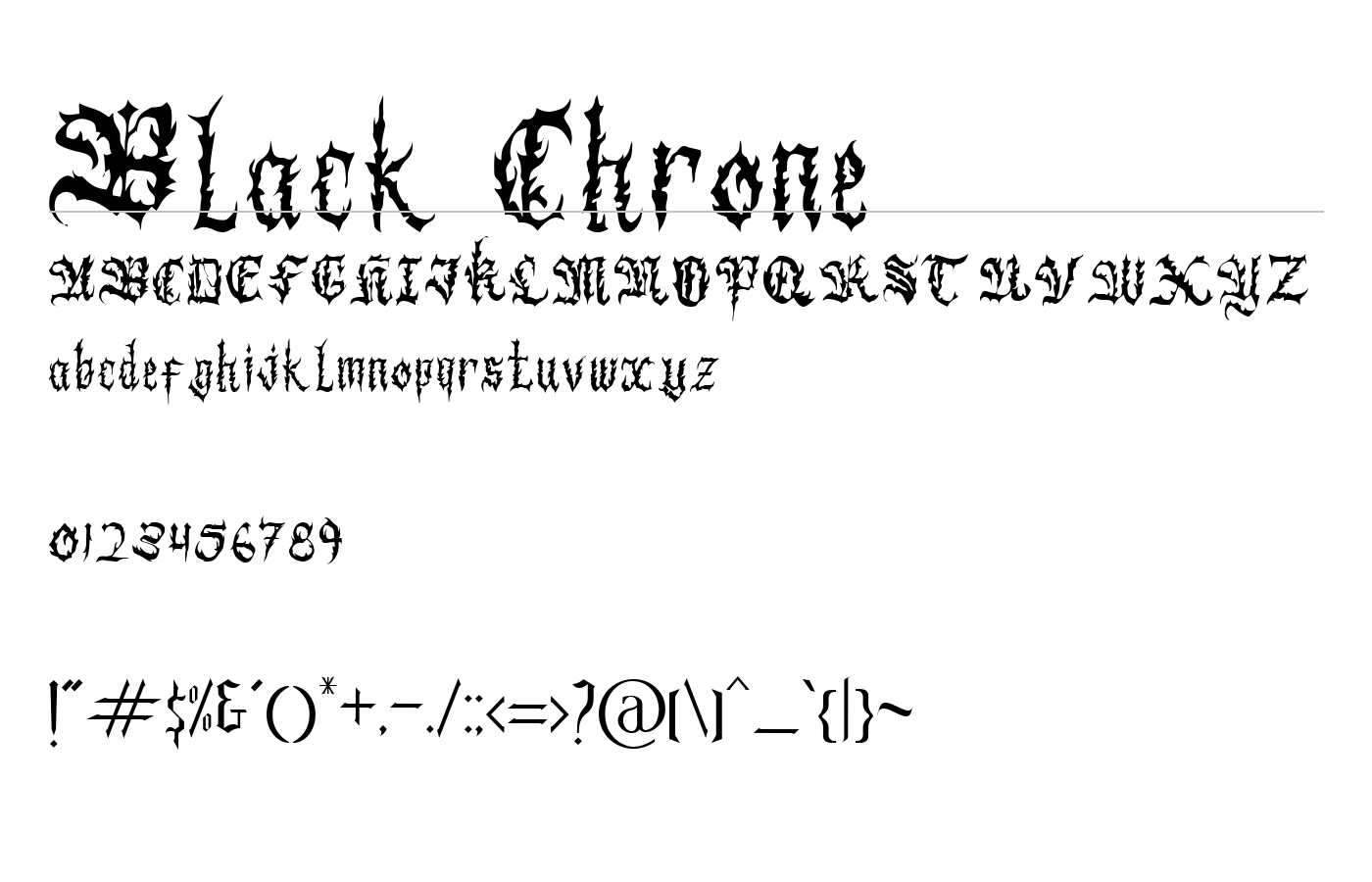
Black Chrone is a dramatic blackletter-inspired font featuring sharp, jagged strokes and a bold, condensed structure that gives it a dark, gothic character. Its heavy contrast and intricate, thorn-like details make it suitable for attention-grabbing headlines, logos, and designs that seek a medieval or edgy aesthetic, though it is less suited for body text due to its complexity. This font works well in contexts like alternative fashion branding, heavy metal music posters, or any project that aims to convey intensity and a bold historic flair.
Black Chrone Font
About Black Chrone Font